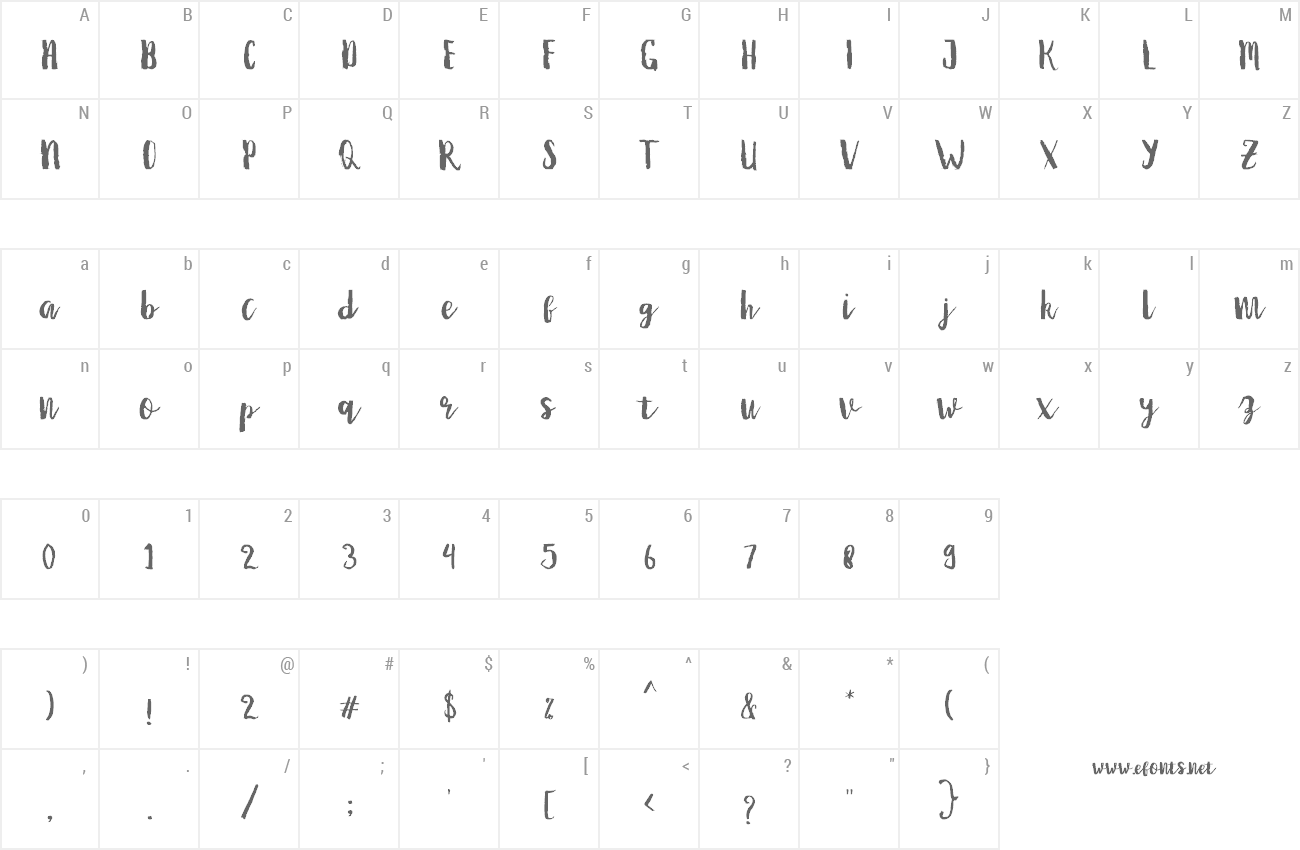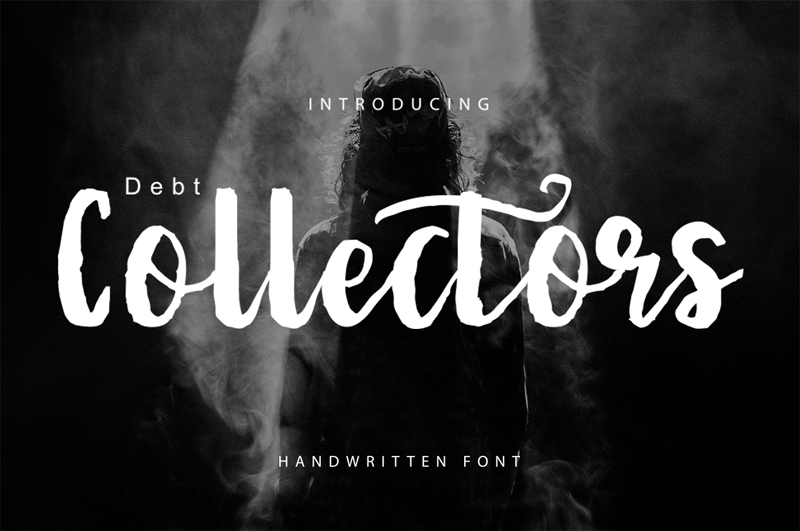
Preview and download Debt Collectors Font. Created by Masinong Studio in Script Brush styles with Free for personal use license.
Debt Collectors Again presented a hand brush products. The style of handwriting and irregular but still elegant, and you will enjoy to use this font style. This font is free for personal use, for commercial use please buy at this link: https://fontbundles.net/masinong/16991-debt-collectors/rel=bxhMff Thank you -Masinong Studio FOLLOW MY UPDATE FOR UPDATE: https://creativemarket.com/masinong https://www.facebook.com/masinongStd/ https://twitter.com/masinongstd https://www.instagram.com/fajriaiu/ https://www.behance.net/masinong |